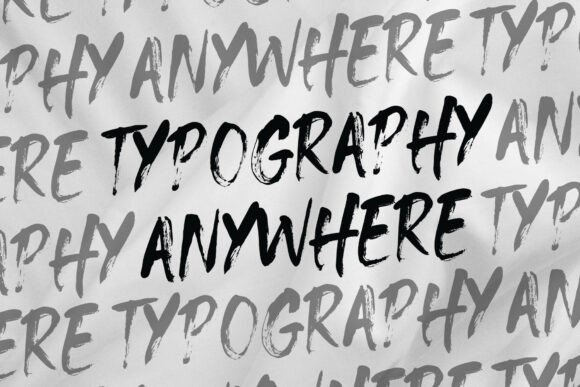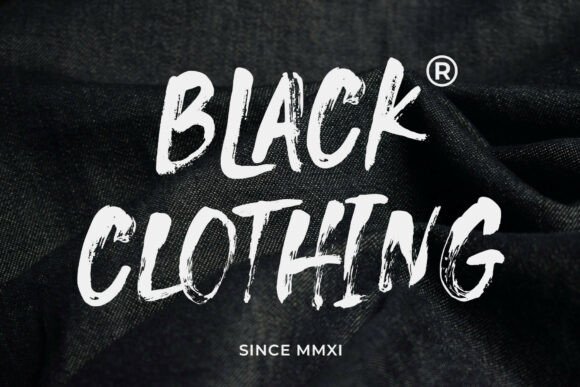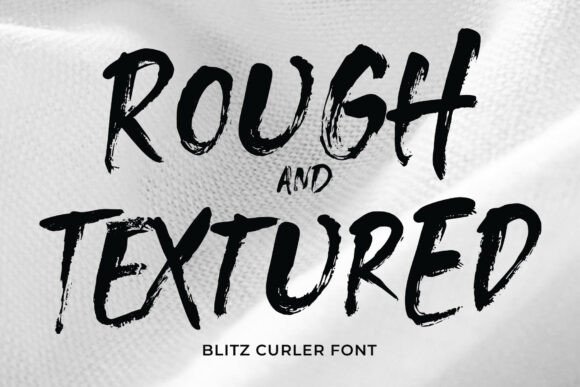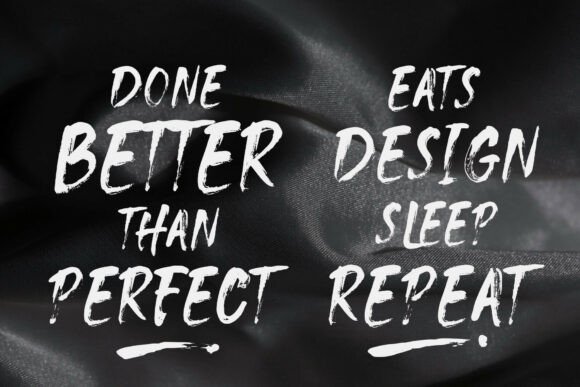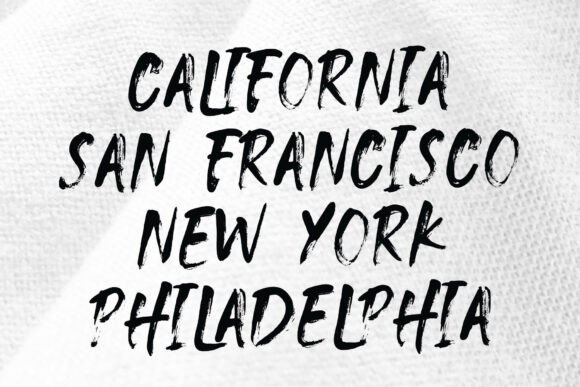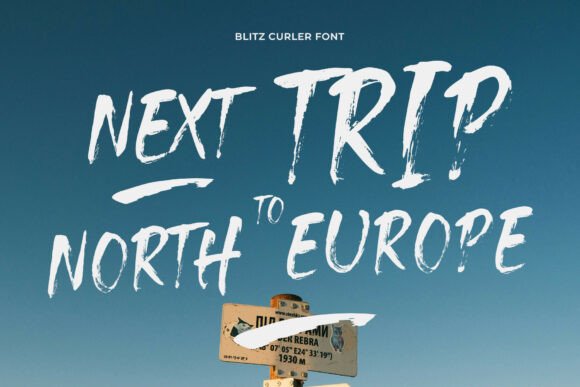
Unleash Your Inner Rebel with the Blitz Curlers Font
Have you ever felt the rush of adrenaline as you create something new and bold? The moment when your design comes together, and you know you’re onto something special? That’s exactly what the Blitz Curlers Font is all about – unleashing raw energy and urban grit into your designs.
This authentic textured brush font is crafted for bold creators who refuse to blend in. With its hyper-realistic dry-brush details and striking, high-impact all-caps characters, the Blitz Curlers Font channels the fierce energy of action sports, streetwear branding, and modern graffiti art. Whether you’re designing a logo, poster, or social media campaign, this font is the perfect choice for adding a rugged, casual touch without sacrificing legibility.
As a designer, you’re constantly on the lookout for the perfect font to elevate your work. The Blitz Curlers Font delivers a flawless balance between structured anatomy and rough, distressed edges, making it a valuable addition to your toolkit.
- Unique Characteristics: Distressed, Grunge, Curl, Swash, and Vintage style; Perfect for creating a distressed, worn look
Blitz Curlers Font Review
First impressions are everything, and Blitz Curlers Font certainly delivers. I love how versatile it is, working seamlessly across digital and print platforms. The font’s unique curl design adds a touch of whimsy, perfect for brands looking to stand out.
✨ One of the standout features of Blitz Curlers Font is its exceptional legibility. Even at smaller font sizes, the characters remain crisp and clear. This makes it an excellent choice for body text or headlines in a variety of contexts.
✨ Another advantage of Blitz Curlers Font is its wide range of customization options. From font weights to line spacing, you have complete control over the final product. This level of flexibility is a huge plus, especially for designers working with clients who have specific requirements.
- ✨ Perfect for digital and print applications
- ✨ Excellent legibility at various font sizes
- ✨ Highly customizable
While Blitz Curlers Font is an excellent choice in many situations, there are some limitations to consider.
⚠️ One potential drawback is that the font’s unique design can be overwhelming if used extensively. It’s essential to strike a balance between using the font for emphasis and relying on more traditional typography.
⚠️ Additionally, the font may not be suitable for all types of content. For example, it may not be the best choice for formal or professional documents where a more conservative font is preferred.
- ⚠️ Can be overwhelming if used excessively
- ⚠️ May not be suitable for formal or professional content
In conclusion, Blitz Curlers Font is a great addition to any designer’s toolkit. While it may have some limitations, its versatility, legibility, and customization options make it a valuable resource for a wide range of projects. With the right balance and application, Blitz Curlers Font can add a touch of creativity and flair to any design.
Tips for Getting the Most Out of Blitz Curlers Font
Here are some tips for using Blitz Curlers Font effectively:
- Use it for titles and headings to add a touch of elegance.
- Pair it with a clean and simple background to make it stand out.
Blitz Curlers Font is commonly used for:
- Business branding and marketing materials.
- Event and party invitations.